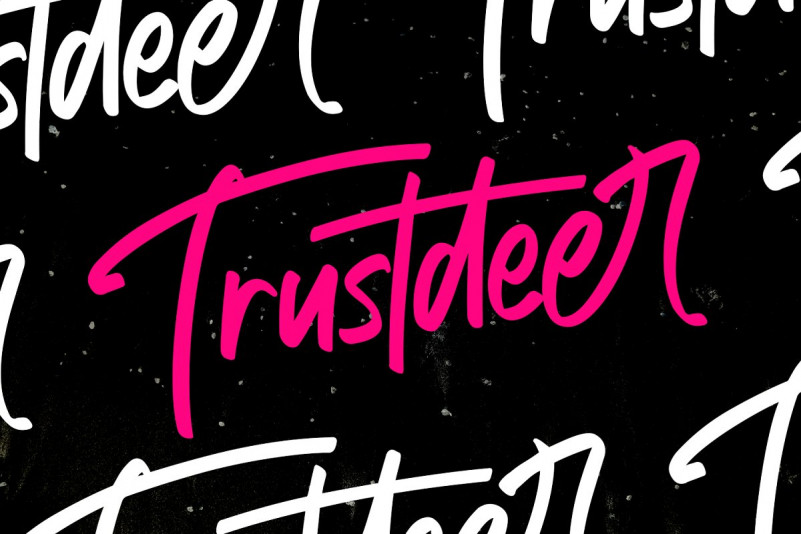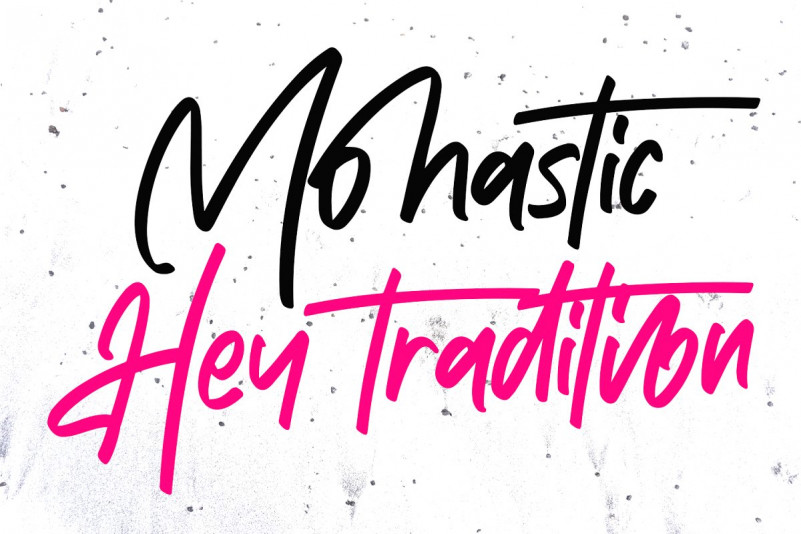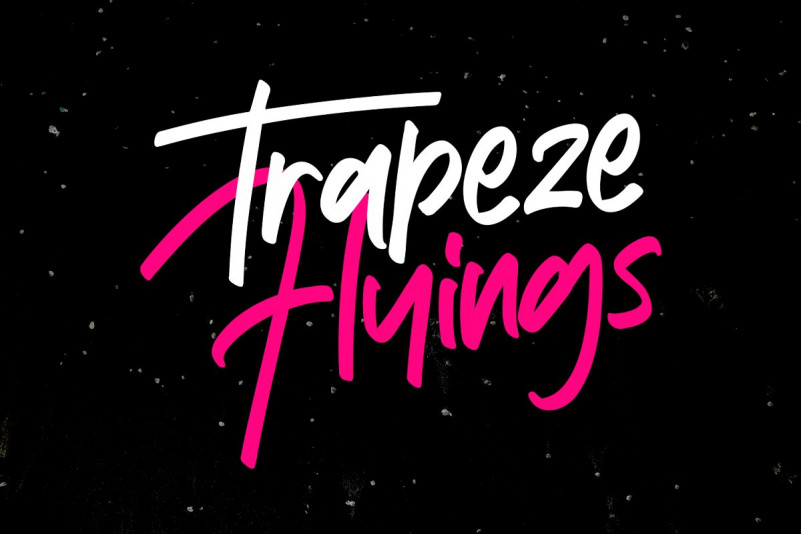
Trustdeer Font
Give your designs an authentic handcrafted feel. “Trustdeer Handbrush Font” is perfectly suited to signature, stationery, logo, typography quotes, magazine or book cover, website header, clothing, branding, packaging design and more.